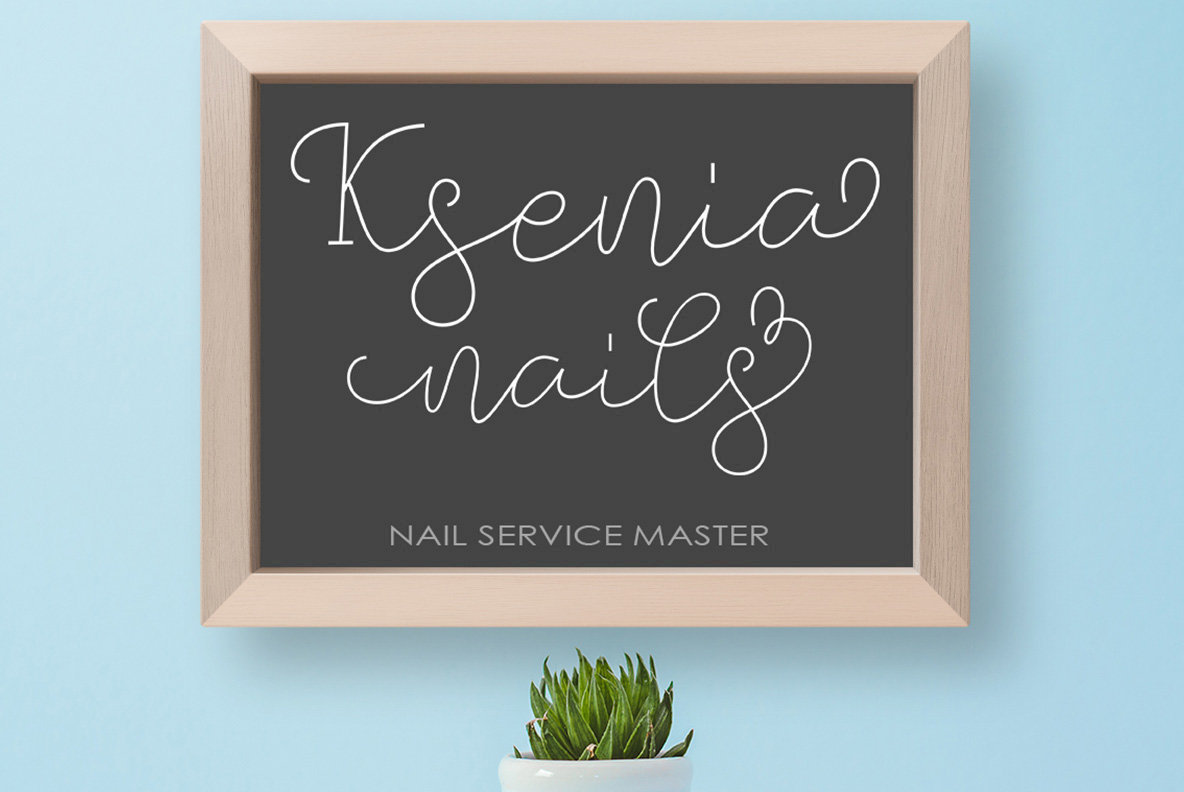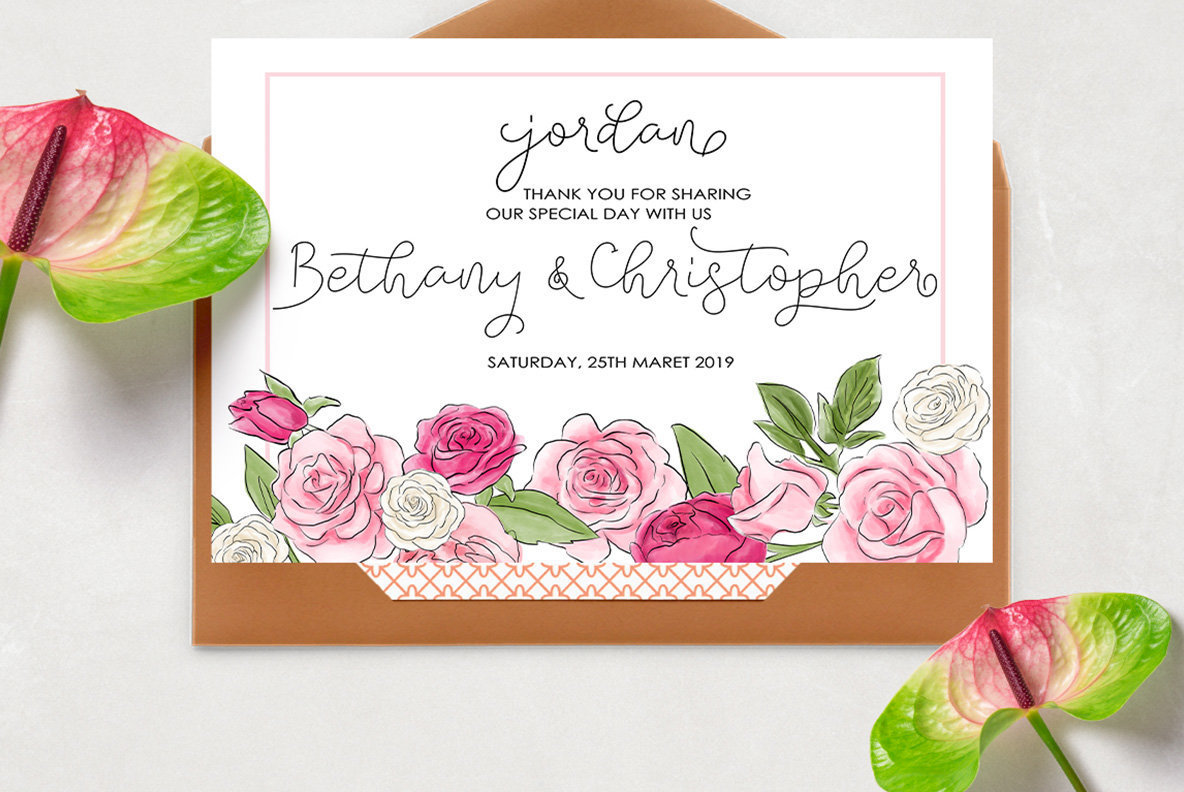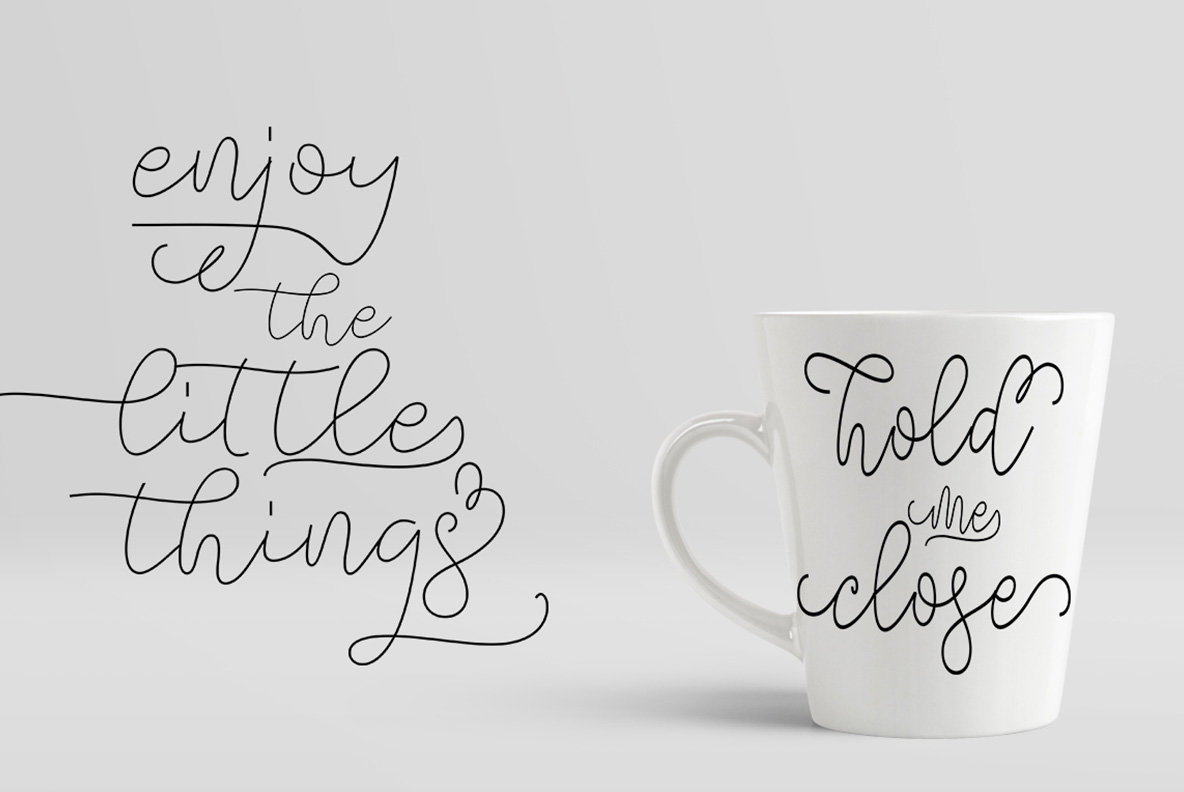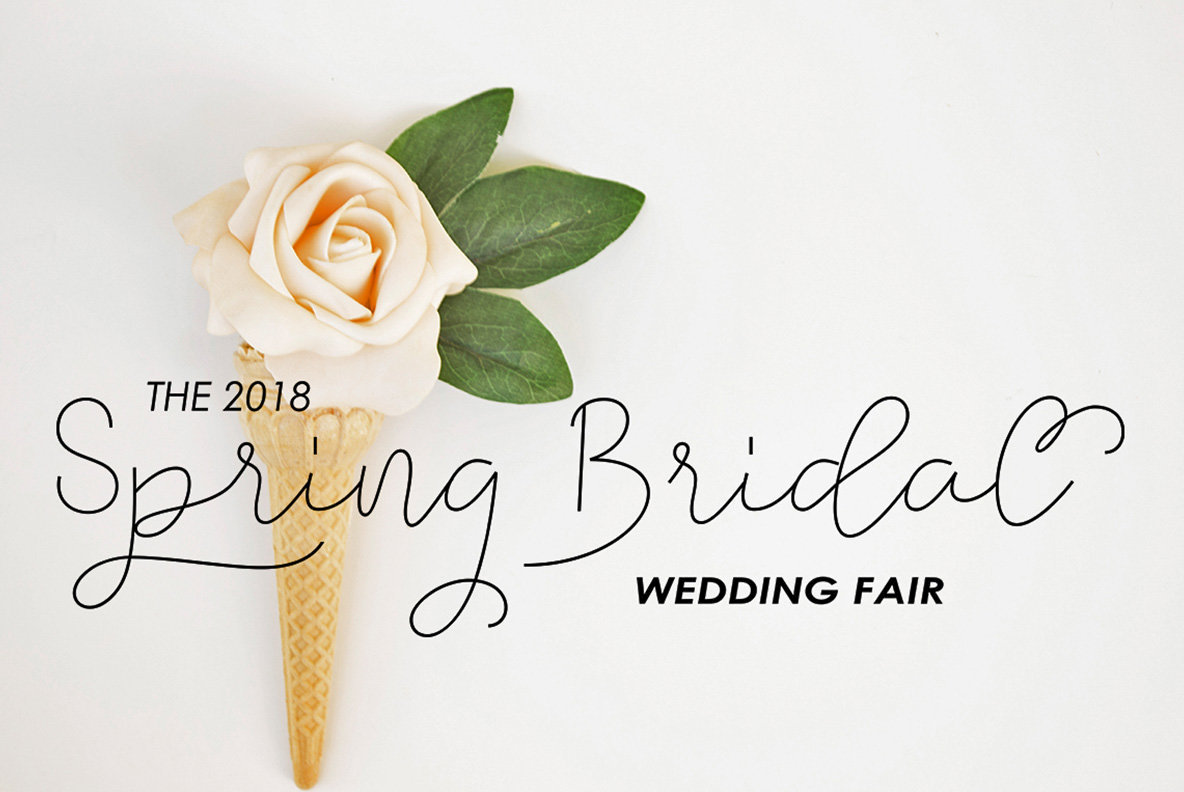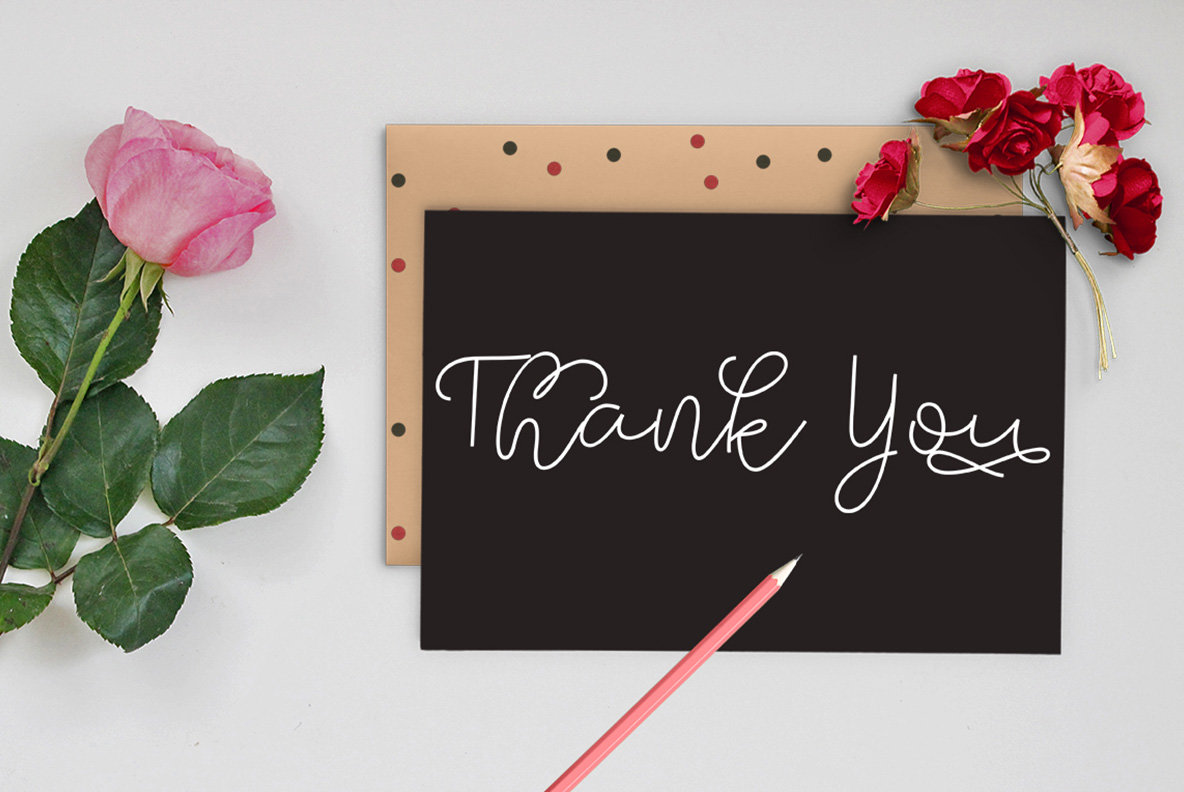
Felicity Font
Felicity Script by Akmal Yusar offers the perfect blend of elegance and casual flair, designed for those seeking a versatile calligraphy typeface. Available in both Regular and Bold weights, it complements a range of creative applications—from logos and packaging to wedding invitations and book covers. Its charming swashes add a delicate touch, ensuring your projects are visually captivating. Whether you're a seasoned designer or just beginning your creative journey, Felicity Script offers intuitive solutions. Accessing alternative characters is straightforward with Adobe Illustrator, CorelDraw, and Microsoft Word, among others. For users preferring simpler setups, Character Map on Windows and Font Book on Mac provide easy access to the extra characters, ensuring no creative potential goes untapped.Felicity Script: Elegant Calligraphy for Creative Projects